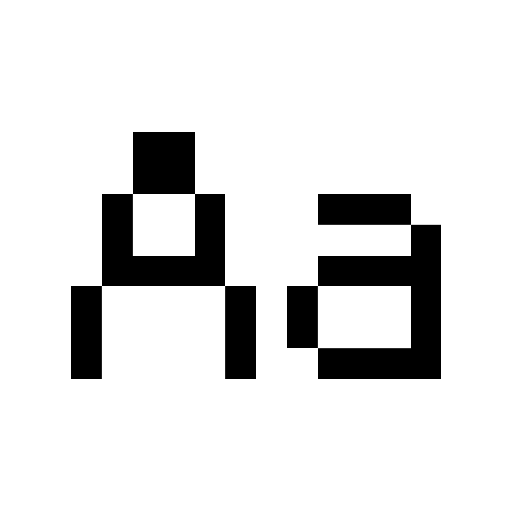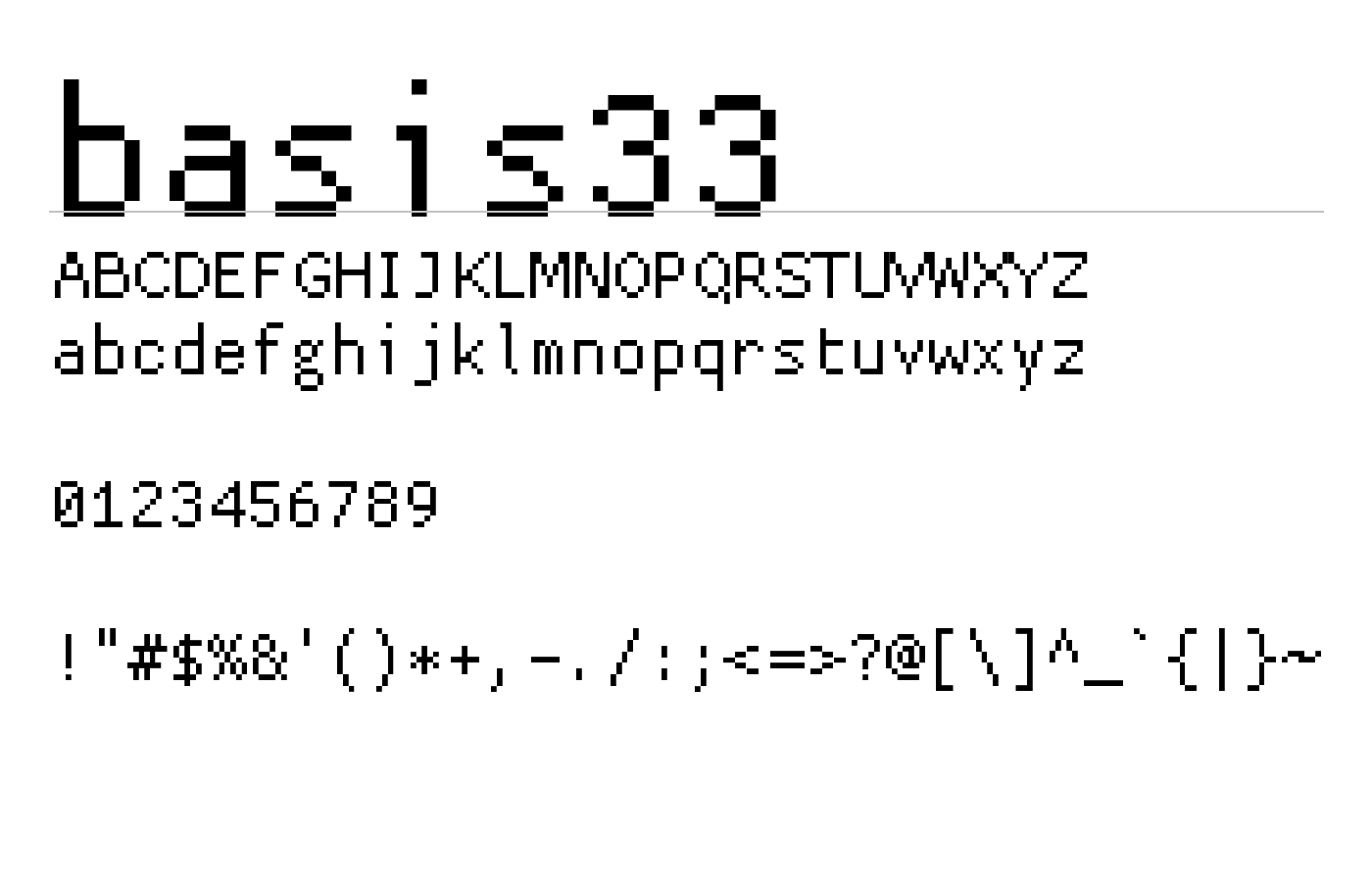
Basis33 is a pixelated, monospaced sans serif font with a digital, retro video game aesthetic. Its blocky, geometric letterforms and consistent stroke weight make it perfect for tech-themed designs, coding environments, or nostalgic pixel art projects, offering clarity and a strong digital personality. This font works well in screen displays, digital interfaces, and creative headlines where a vintage computer vibe is desired.
basis33 Font
About basis33 Font
| Designer | Tristan Grimmer, Manchson |